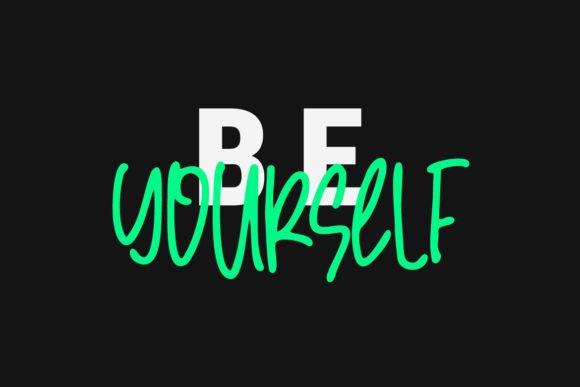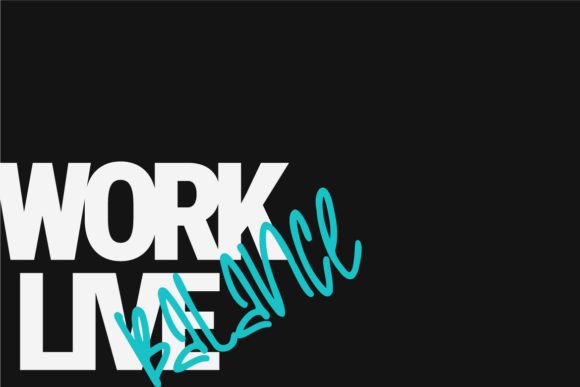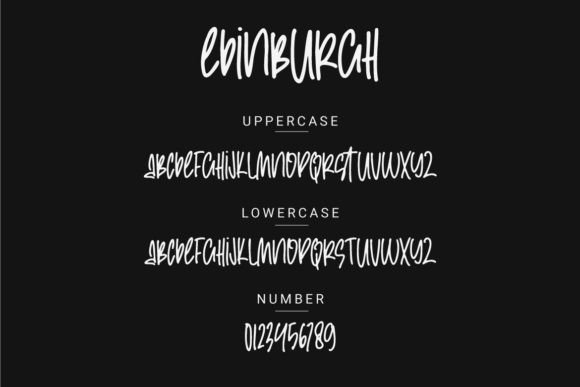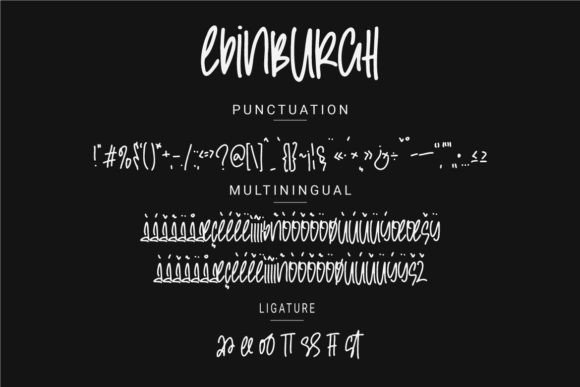
Introducing the Edinburgh Font: A Modern, Handwritten Script with a Trendy Twist
In the world of typography, fonts play a crucial role in conveying the tone and personality of a brand or design. For designers and crafters looking for a modern, handwritten script that exudes a casual and slightly edgy aesthetic, the Edinburgh Font is an excellent choice. This font is designed to capture attention with its unique, dynamic, and spontaneous appearance, making it perfect for a variety of creative projects.
What Makes Edinburgh Font Stand Out?
The Edinburgh Font is a modern, handwritten script that boasts an irregular baseline and varying stroke weights. This distinctive combination gives the font a youthful and trendy feel, setting it apart from more traditional typography. The irregular baseline creates a sense of movement and energy, while the varying stroke weights add a touch of sophistication and elegance.
One of the key features that make Edinburgh Font so appealing is its casual, edgy aesthetic. This font is not your typical, perfectly uniform script. Instead, it has a delightfully imperfect quality that makes it feel more approachable and relatable. The font’s dynamic and spontaneous appearance is perfect for designers and crafters who want to add a touch of personality to their work.
Perfect for Attention-Grabbing Designs
The Edinburgh Font is designed to capture attention, making it an excellent choice for a variety of design projects. Whether you’re working on a logo, branding materials, packaging, or social media graphics, this font is sure to make a statement. Its youthful and trendy vibe is perfect for targeting a younger audience or creating a modern, edgy look.
For crafters, the Edinburgh Font is a great choice for handmade projects, such as craft tutorials, journaling, and scrapbooking. The font’s casual, handwritten quality adds a personal touch to any project, making it feel more authentic and engaging.
Tips for Using Edinburgh Font Effectively
To get the most out of the Edinburgh Font, here are a few tips to keep in mind:
- Use it as a headline font: The Edinburgh Font is perfect for grabbing attention, making it an excellent choice for headlines and titles.
- Pair it with a simple font: To create visual interest, pair the Edinburgh Font with a simple, clean font for body text.
- Experiment with colors: The Edinburgh Font looks great in a variety of colors, so don’t be afraid to experiment and find the perfect hue for your design.
- Add some texture: To give your design an extra layer of depth, try adding some texture to the Edinburgh Font.
The Edinburgh Font is a modern, handwritten script that is sure to capture attention with its casual, edgy aesthetic. Its irregular baseline and varying stroke weights give it a dynamic and spontaneous appearance, making it perfect for designers and crafters looking for a youthful and trendy font. Whether you’re working on a logo, branding materials, or handmade projects, the Edinburgh Font is an excellent choice for adding a touch of personality to your work.
So why settle for a boring, generic font when you can add some excitement to your design with the Edinburgh Font? With its unique blend of modernity and playfulness, this font is sure to take your creative projects to the next level.